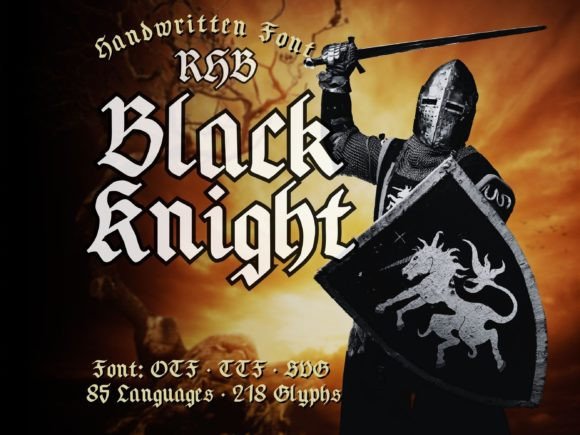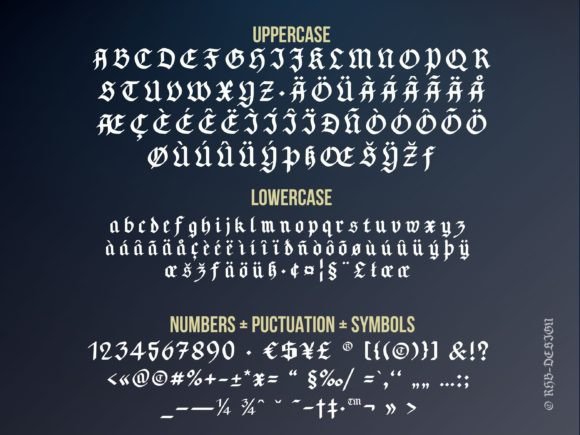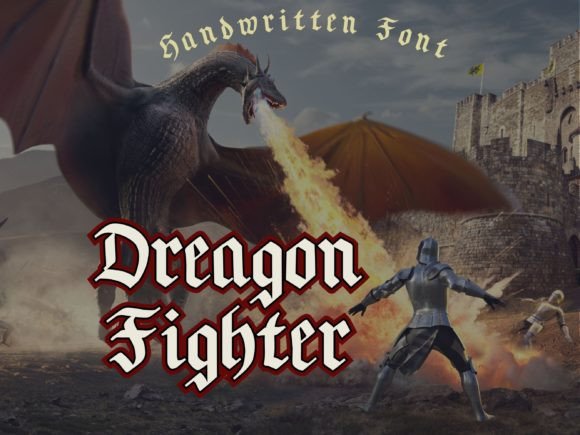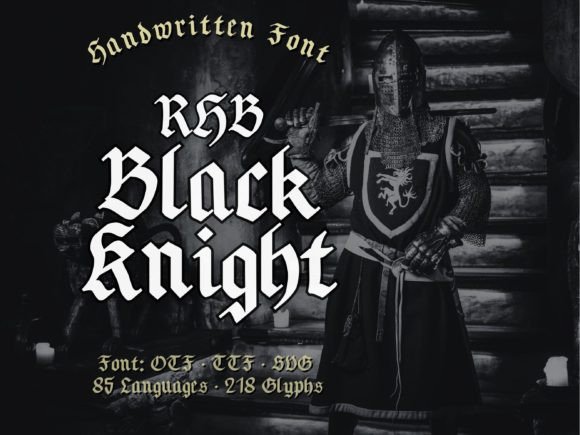
Blackknight Font
About the Blackknight Font
Discover the charm of Blackknight Font. This font is a perfect blend of modern aesthetics and classic appeal. Blackknight is a Gothic blackletter font that channels the timeless elegance of medieval script. Its intricate and sharp letterforms evoke a sense of historical richness and sophistication. Ideal for projects requiring a touch of Gothic allure, Blackknight adds a bold and distinguished aesthetic to your designs.
Blackknight excels in headlines, short text blocks, logos, and branding applications where its strong presence commands attention. It’s also effective for posters, invitations, and packaging design requiring a touch of historical grandeur. However, its intricate detail makes it unsuitable for body text or long paragraphs; readability suffers at smaller sizes. Avoid using it in UI or any context demanding high legibility.
The font’s inherent boldness pairs well with clean, minimalist sans-serif fonts like Futura or Helvetica for contrast and improved readability in multi-font designs. For a more traditional feel, a classic serif such as Garamond or Times New Roman provides a balanced counterpoint. Avoid pairing it with other highly decorative or ornate fonts.
Blackknight projects a bold, serious, and sophisticated personality. It’s ideal for brands aiming for a luxurious, heritage-inspired, or slightly rebellious image, but less suited for playful or informal applications.
Blackknight Font Usage Examples
Blackknight Font Example